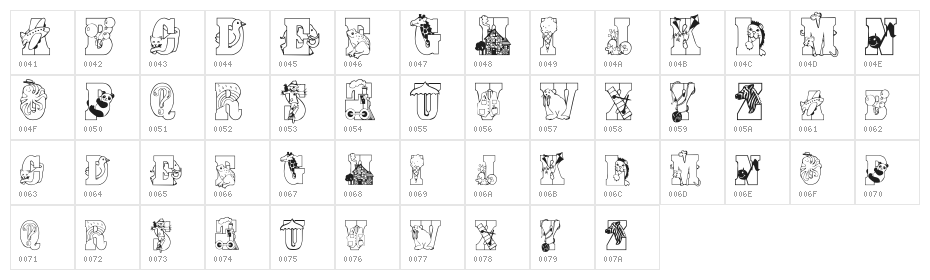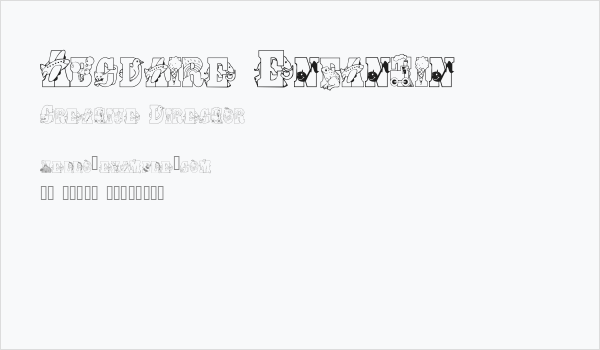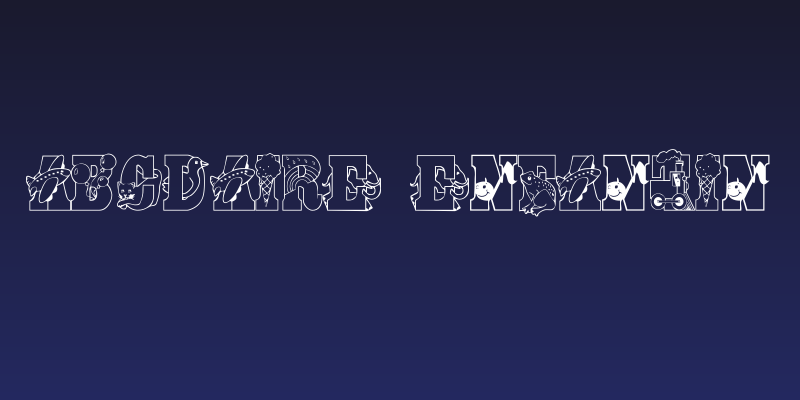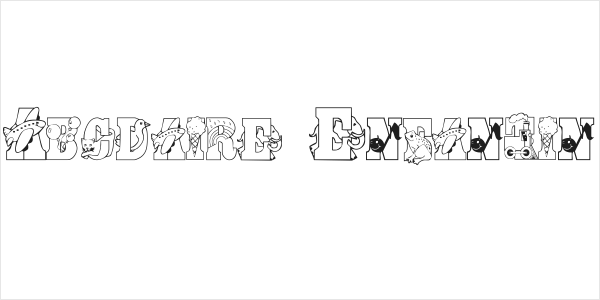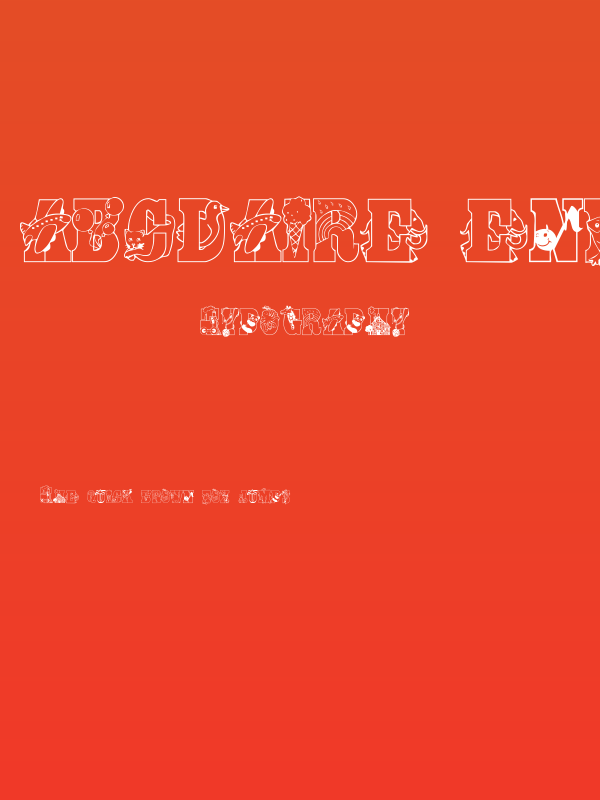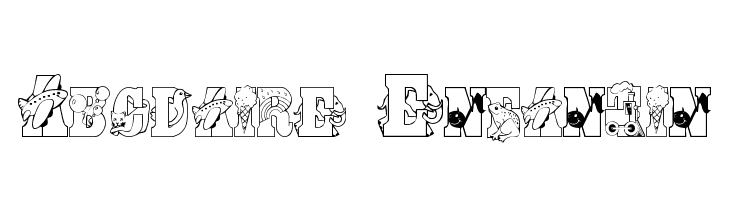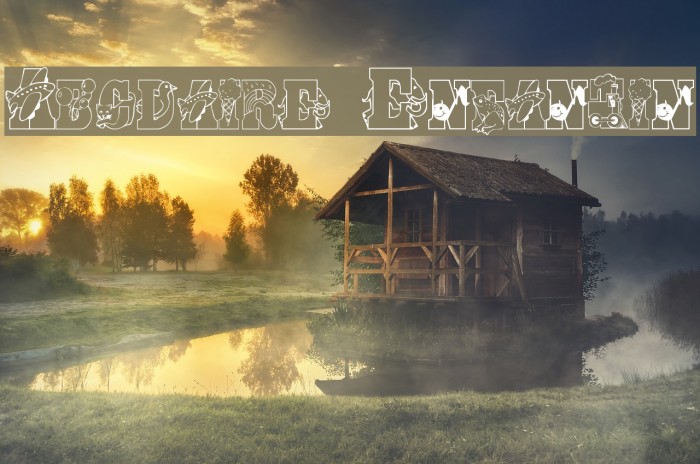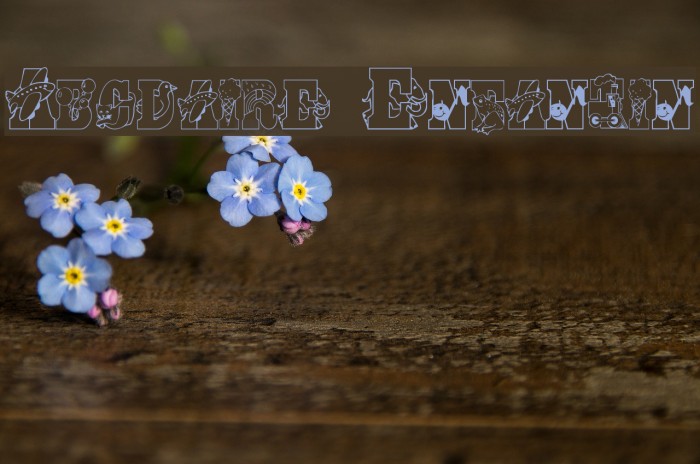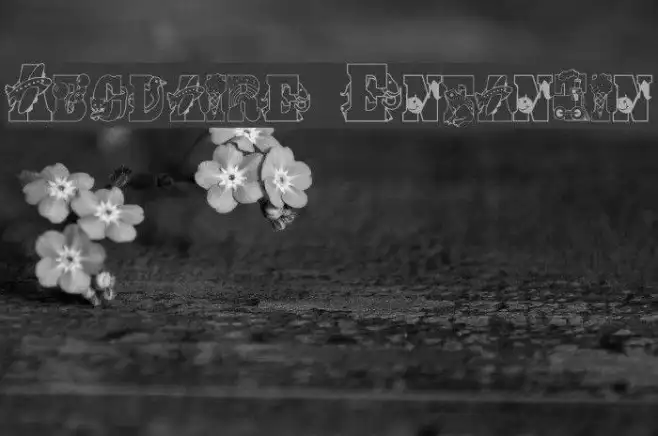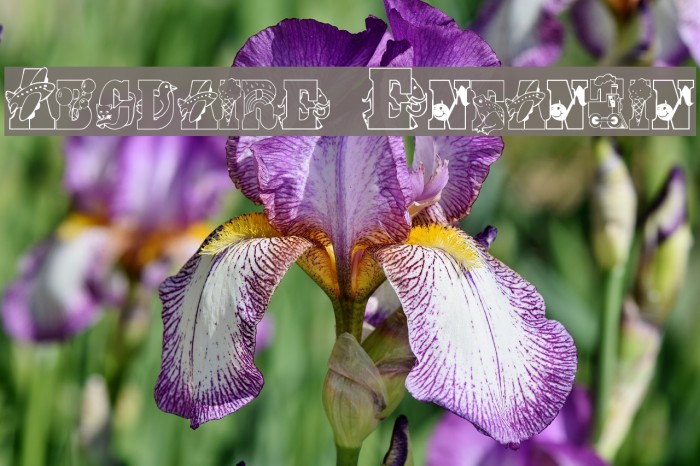
Abcdaire Enfantin Font
Abcdaire Enfantin Description
This playful and decorative font features each letter adorned with whimsical illustrations, making it ideal for children's projects. The uppercase letters are filled with charming characters and objects, creating a lively and engaging visual experience. The style is bold and eye-catching, with each letter standing out due to its unique design elements. The font's intricate details and imaginative themes make it perfect for capturing the attention of young audiences, adding a sense of fun and creativity to any design.
| Overall Style | Playful, Whimsical |
| Proposed Projects | Ideal for children's books, educational materials, playful posters, and creative invitations. |